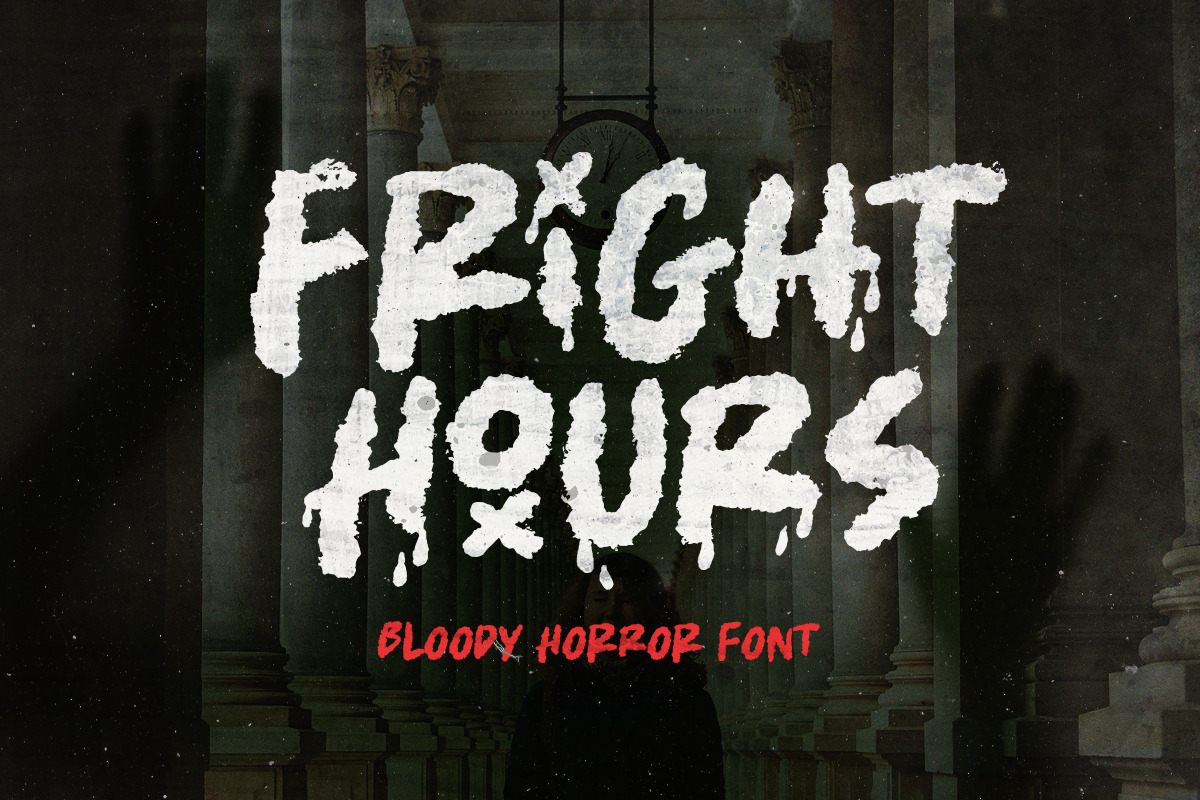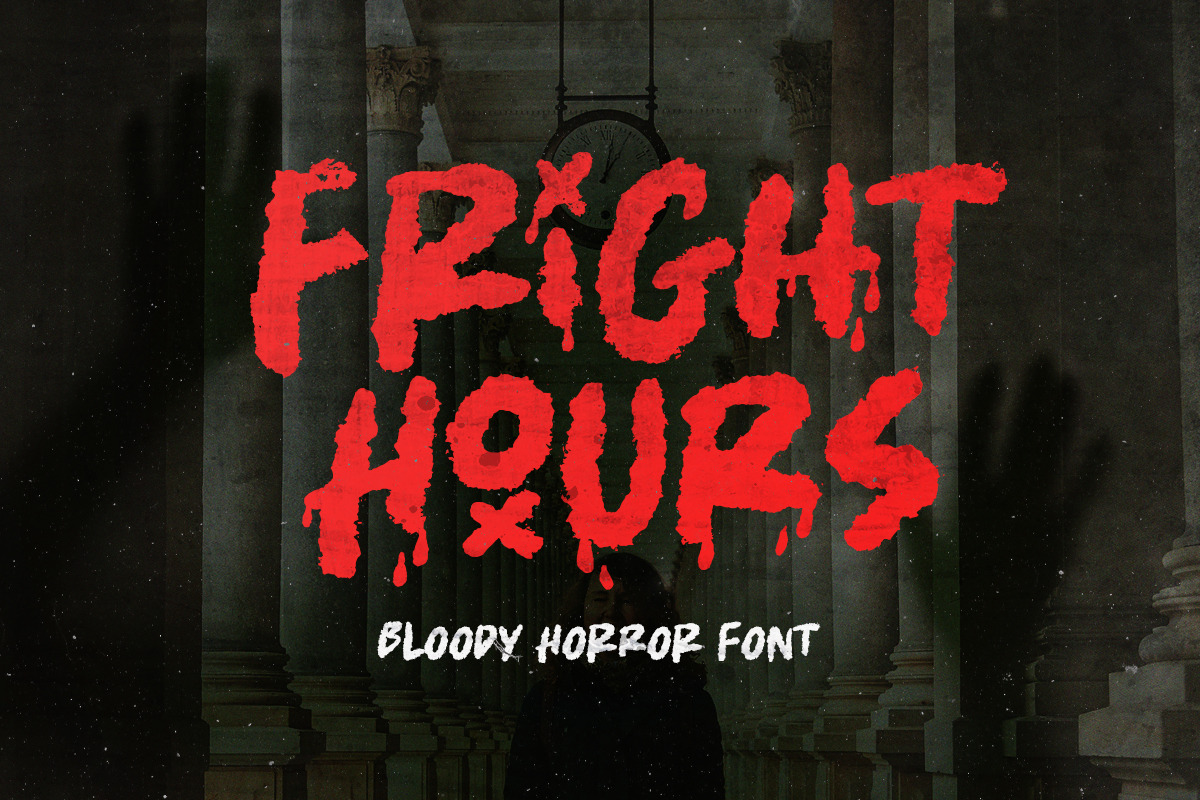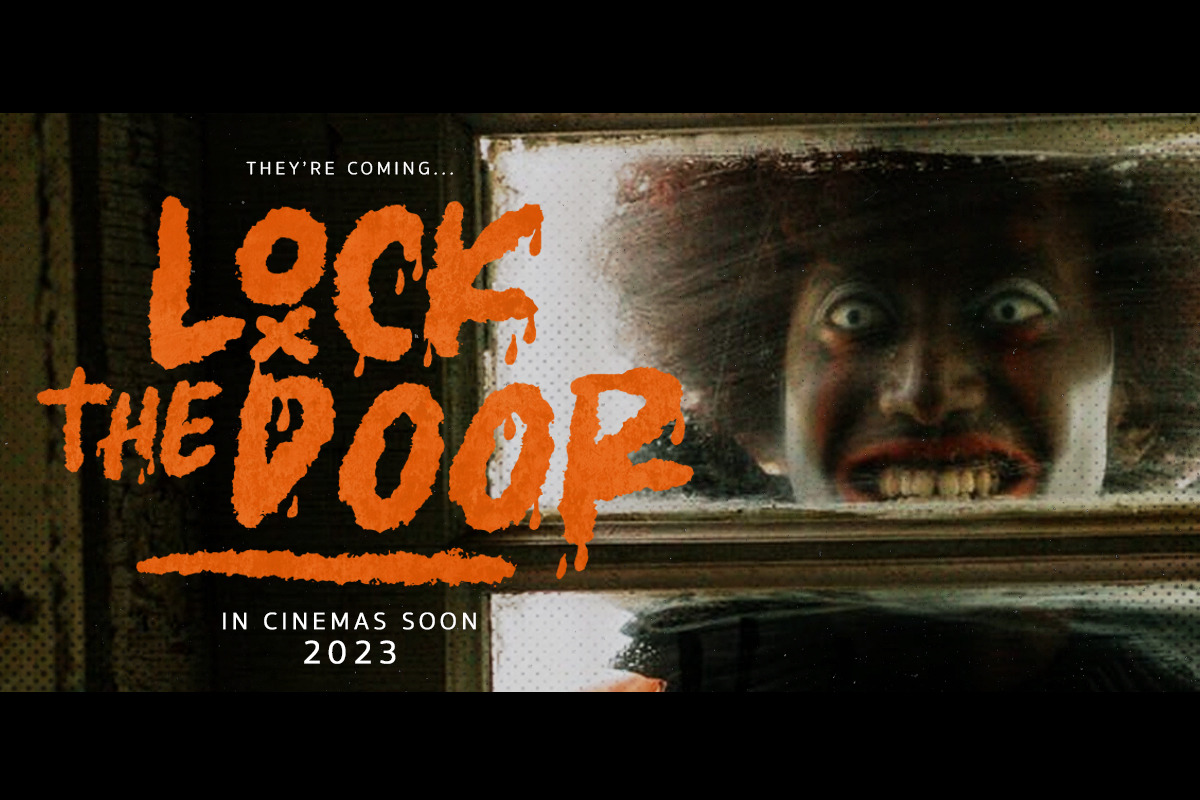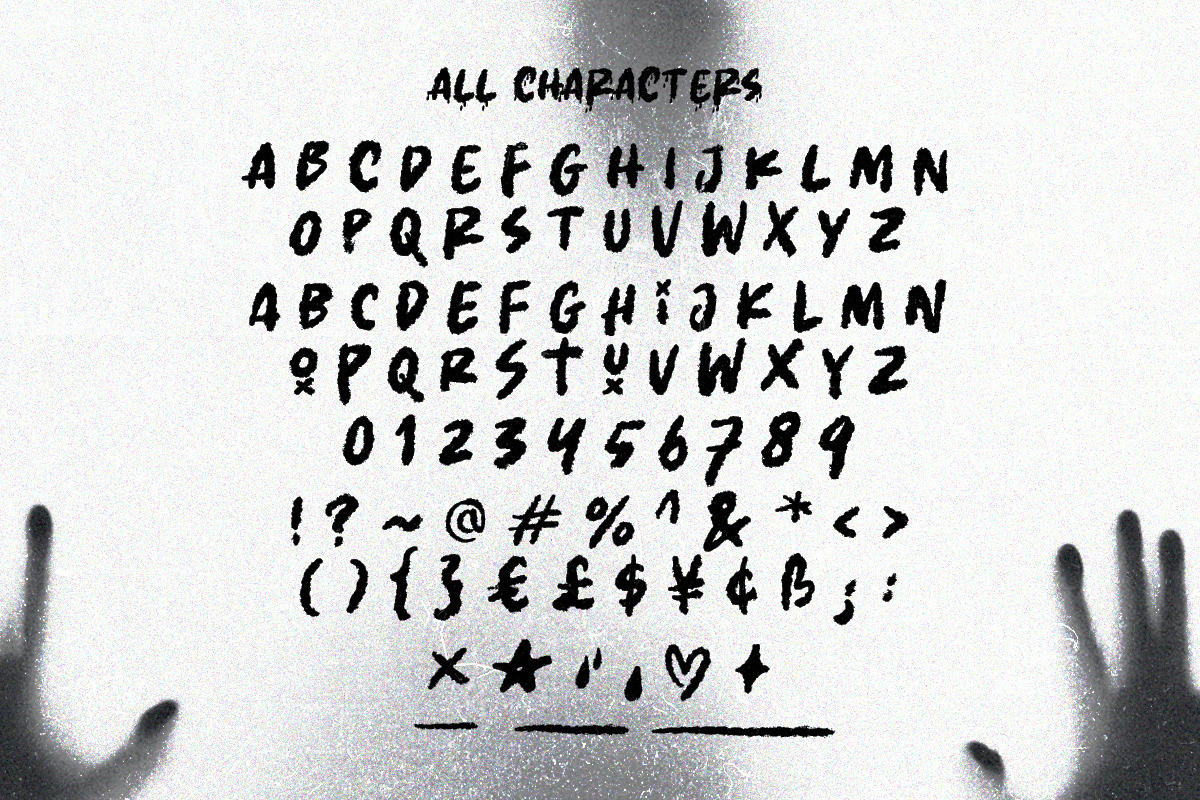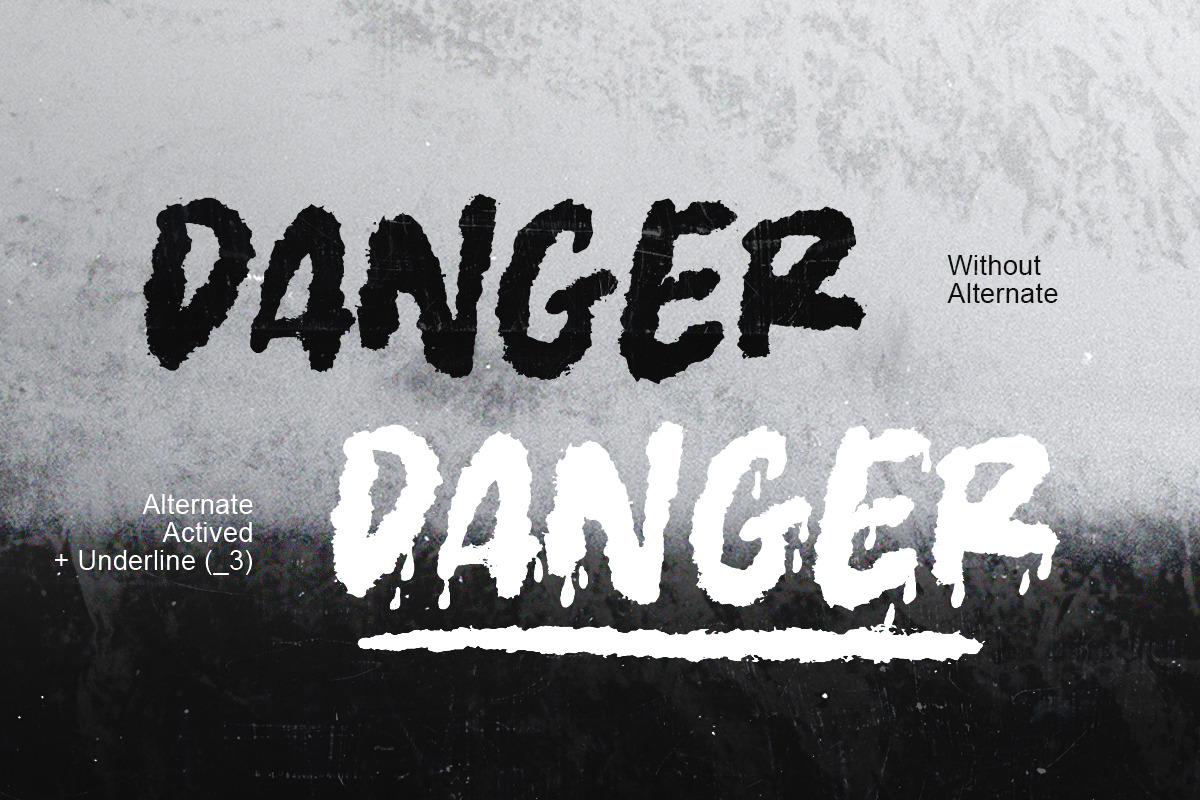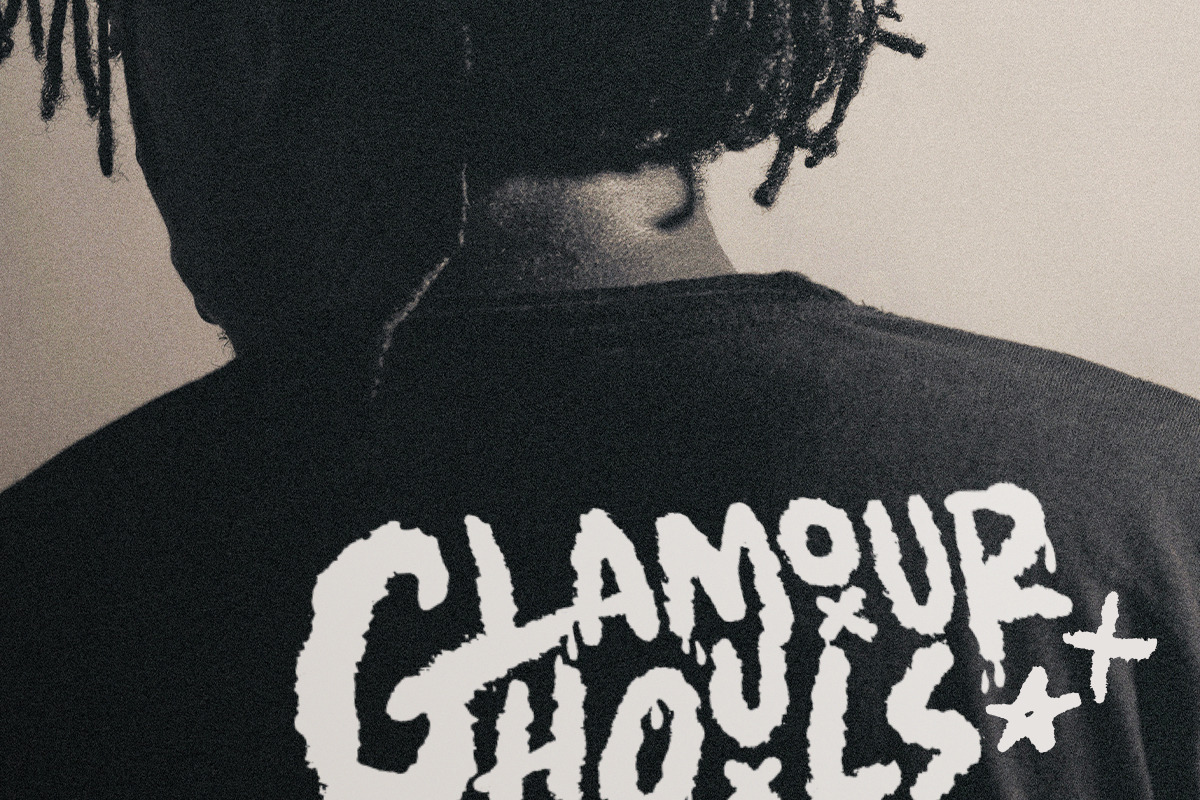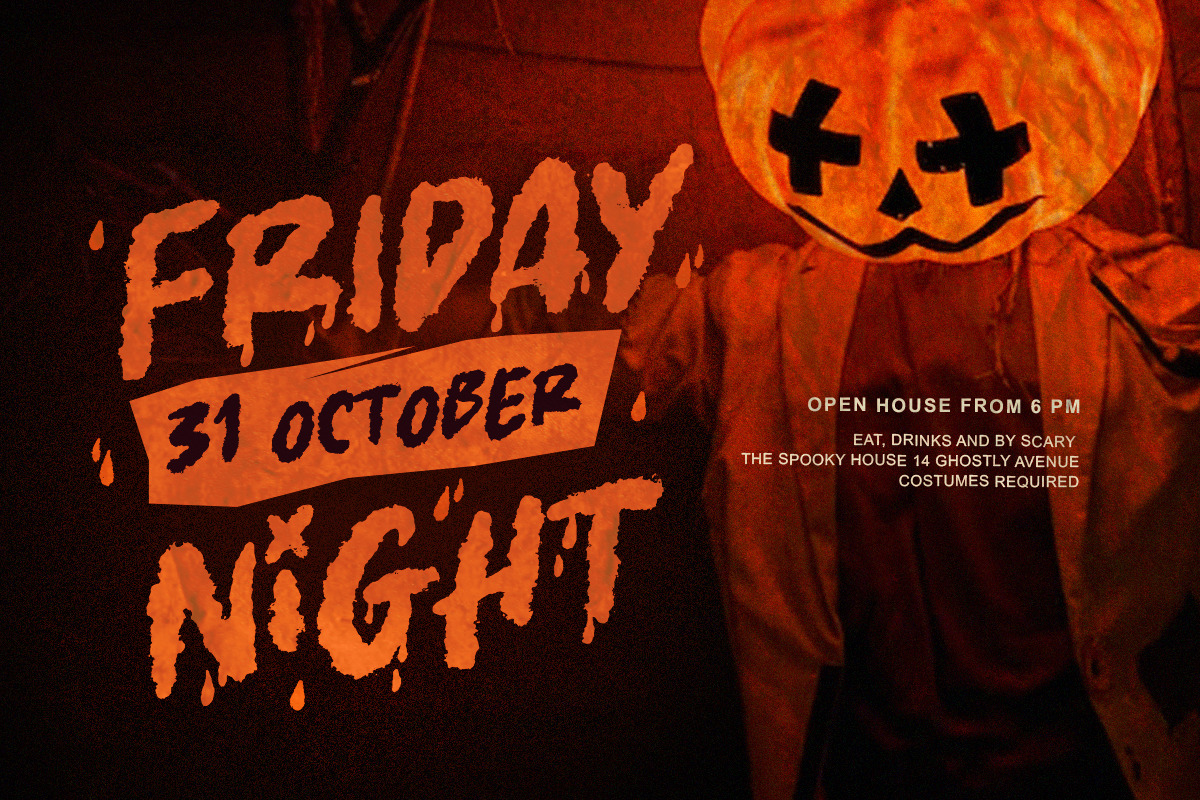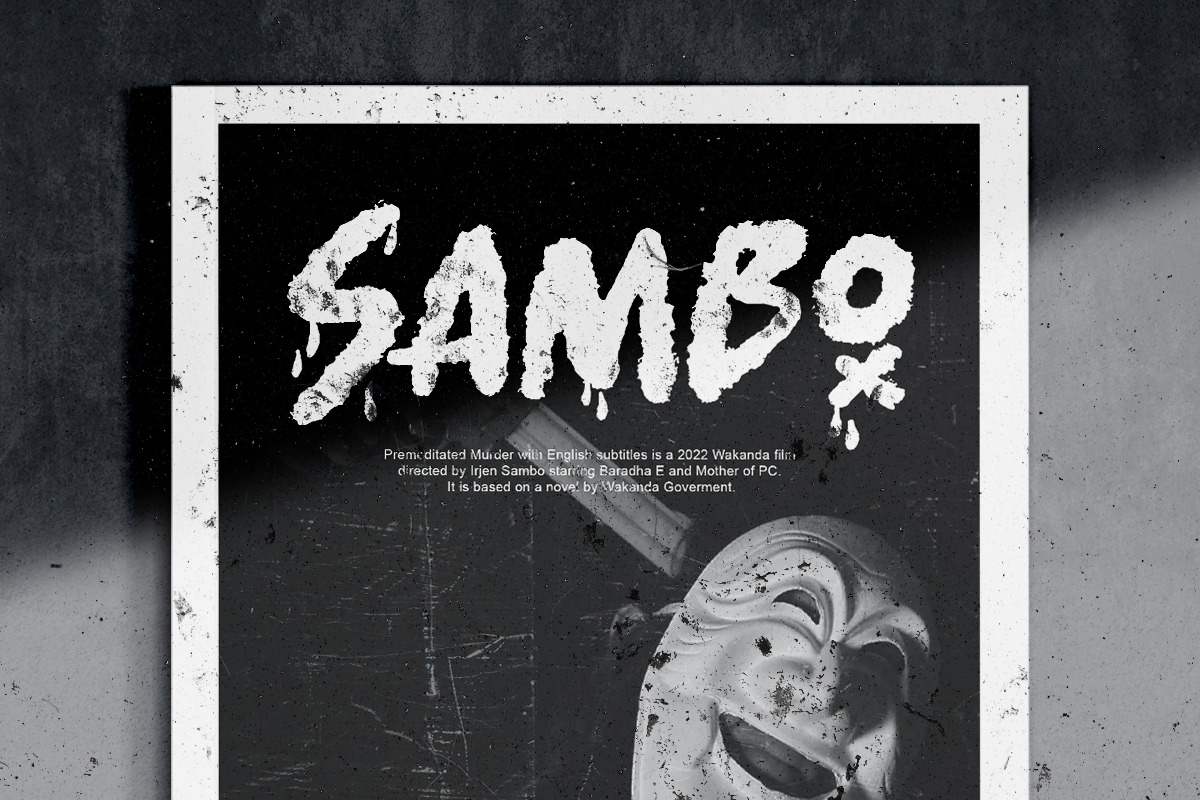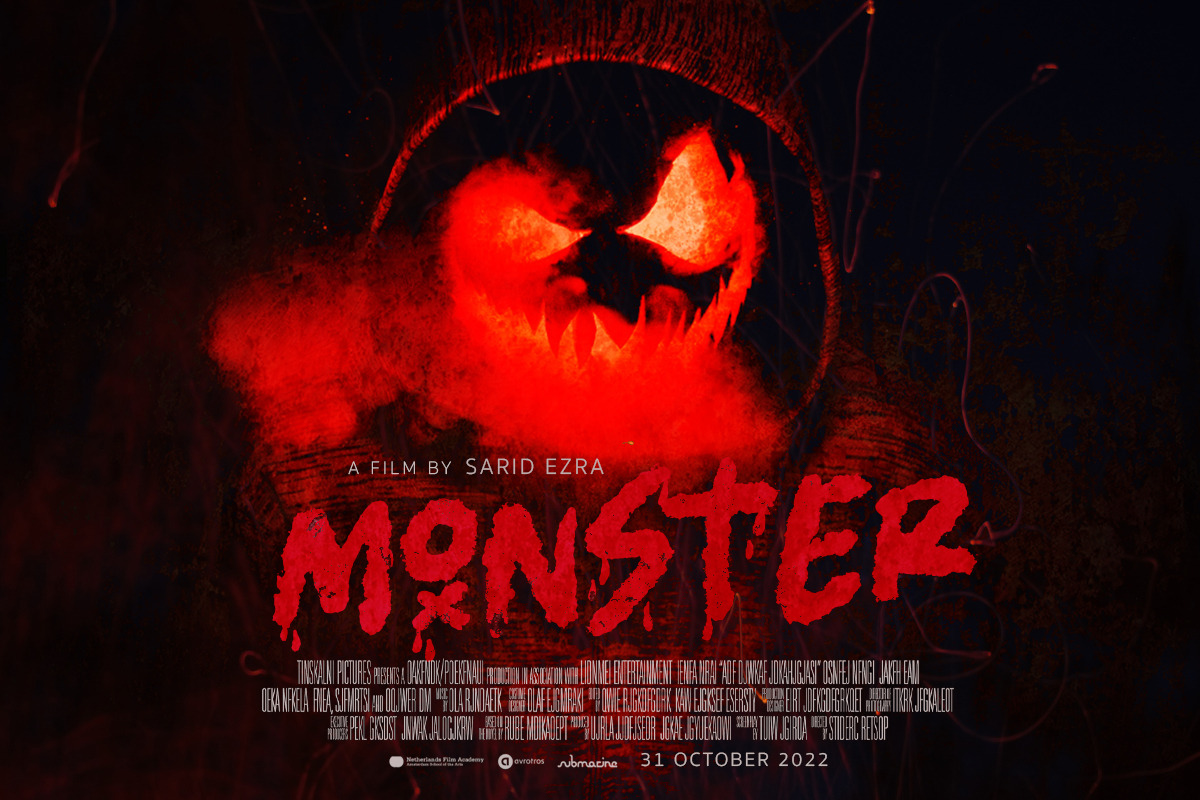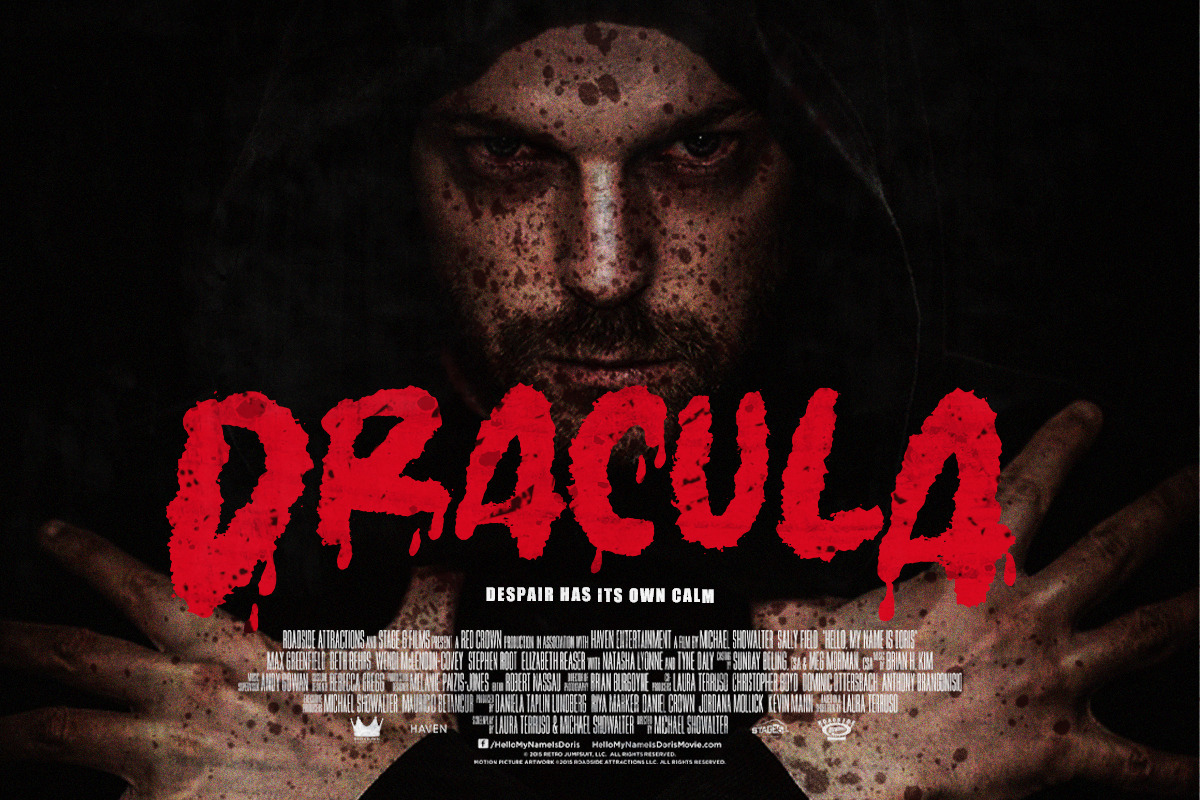
Fright Hours - Bloody Horror Font
Fright Hours is a rough handwritten font with horror & freaky vibes! This font contains the regular and the bloody versions that you can combine to get the best result. This font is very suitable for poster movies especially thriller & horror movies. With unique lowercase, this font will make your poster or your craft more creepy and stunning! You also can use this font for any design because of the versatility in this font. Also, this font support multi language. This is your next halloween font for your future event!